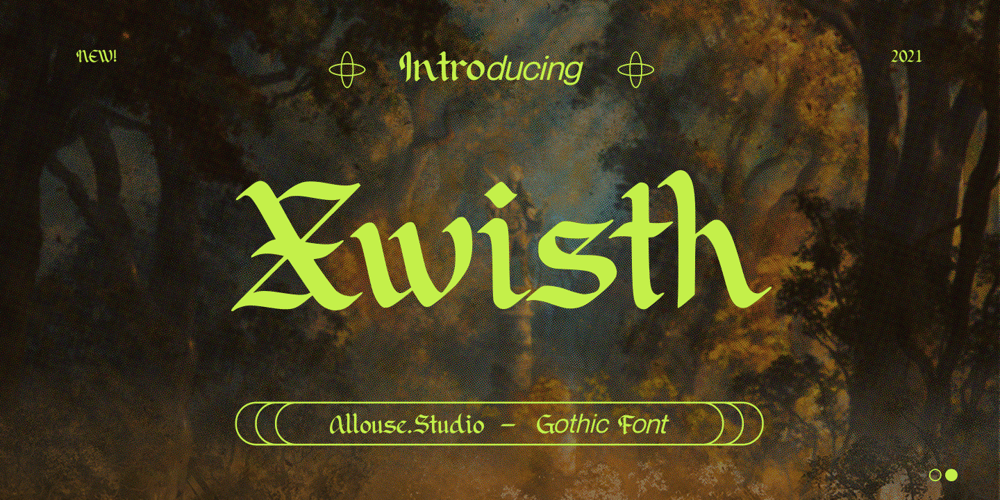
Xwisth
Xwisth font
Xwisth Font Family was designed by Fachrizal Yusuf and published by Allouse Studio. Xwisth contains 1 styles and family package options. Proudly Presenting, Xwisth a Gothic Handwritten Font that will bring an a classical type.Xwisth is perfect for any titles, logo, product packaging, branding project, megazine, social media, wedding, or just used to express words above the background.Xwisth also come with Multi-Lingual Support.Enjoy the font, feel free to comment or feedback, send me PM or email. Thank You!